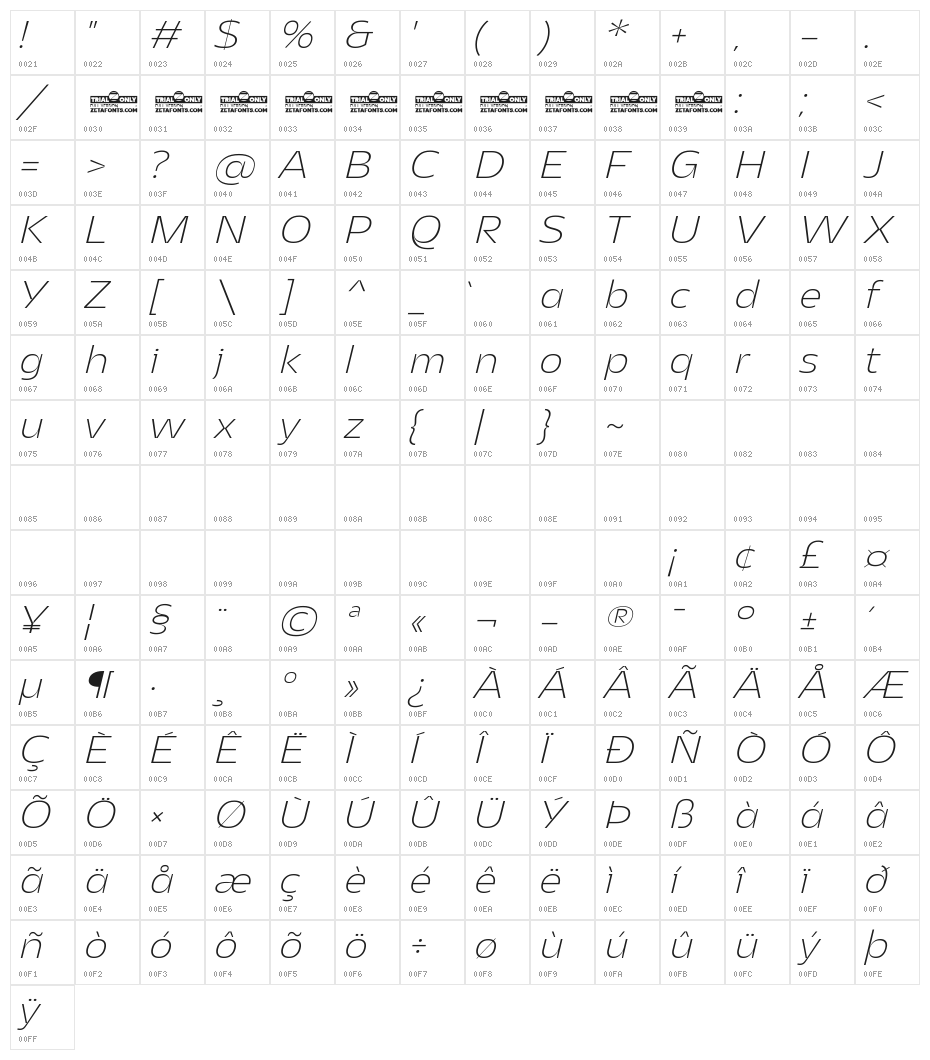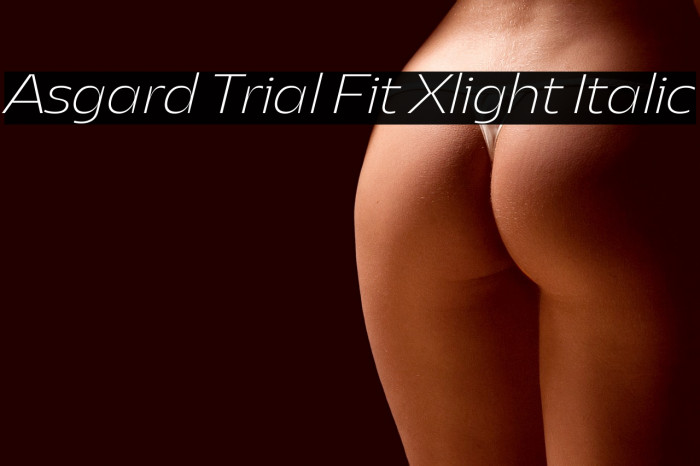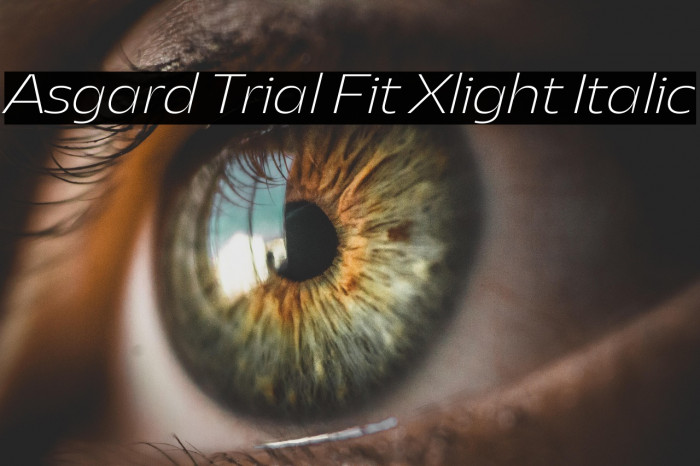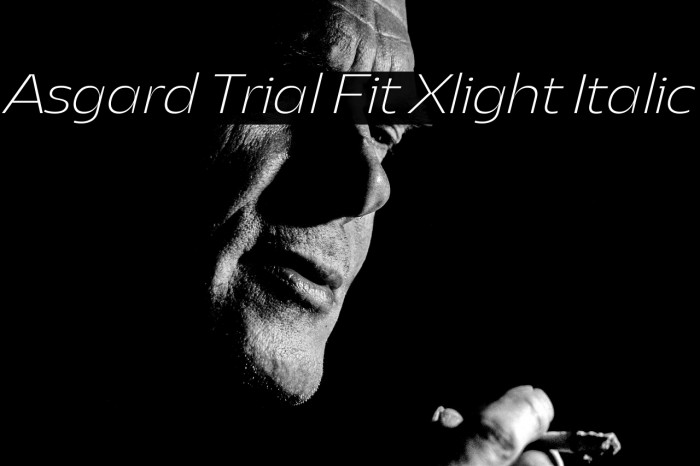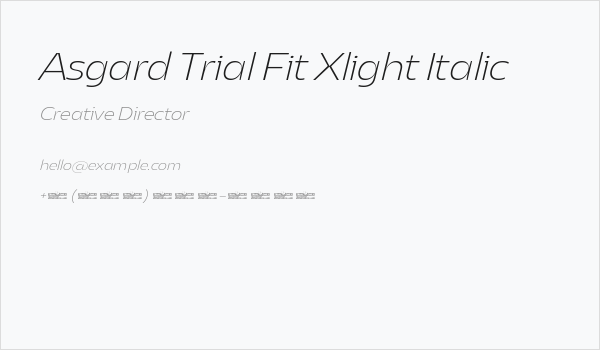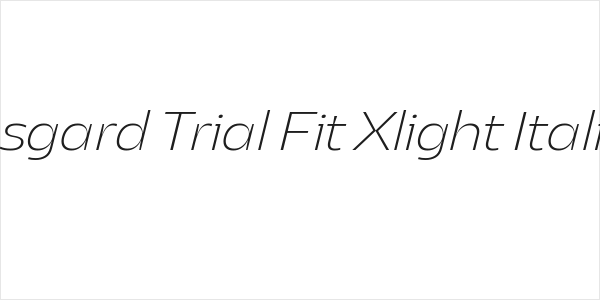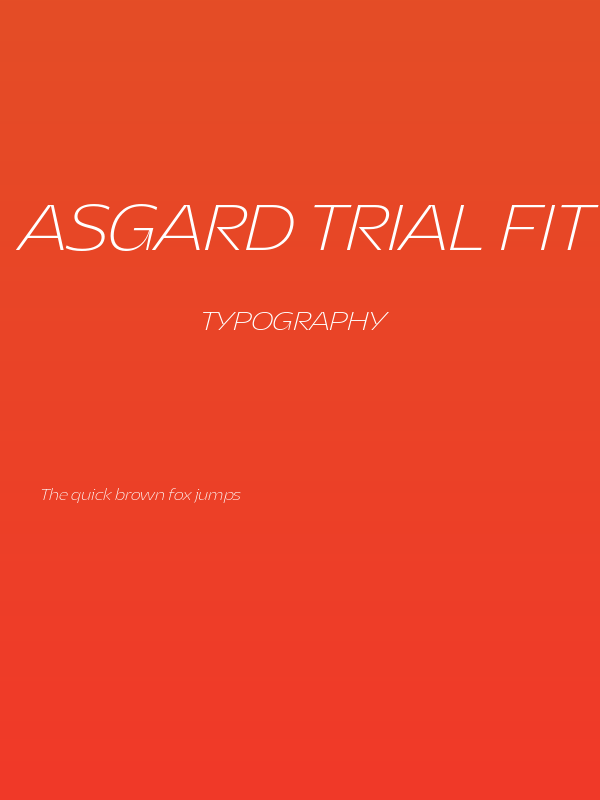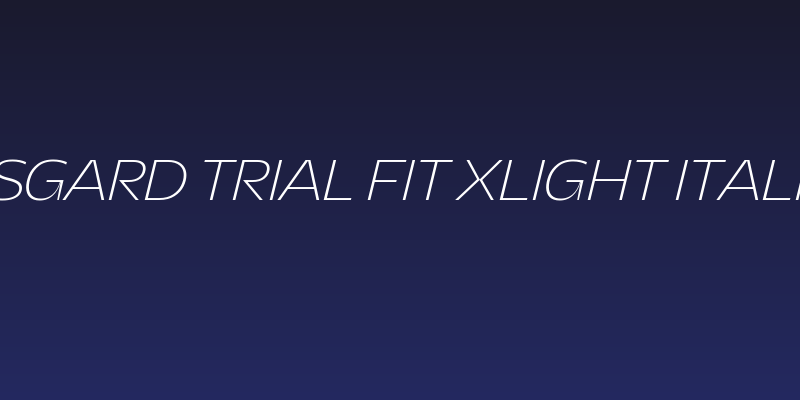
Asgard Trial Fit Xlight Italic Font
Asgard Trial Fit Xlight Italic Description
This font exhibits a sleek and modern aesthetic with its italicized, extra-light strokes. The characters are elegantly slanted, giving a sense of motion and fluidity. The design is minimalistic, with clean lines and a refined structure that enhances readability while maintaining a sophisticated appearance. The uppercase and lowercase letters are well-proportioned, and the numerals are consistent with the overall style. Special characters are included, adding versatility to the font's application. Its contemporary look makes it suitable for various design needs.
| Use Case | Headlines, Logos, Digital media |
| Proposed Projects | Ideal for modern branding, fashion magazines, elegant invitations, and digital media projects. |